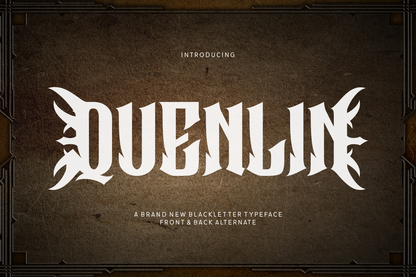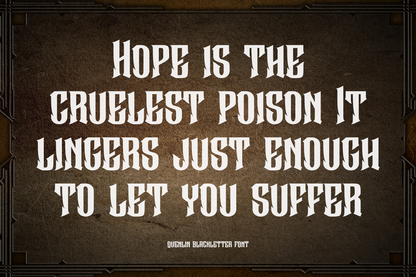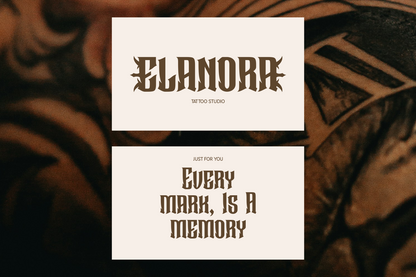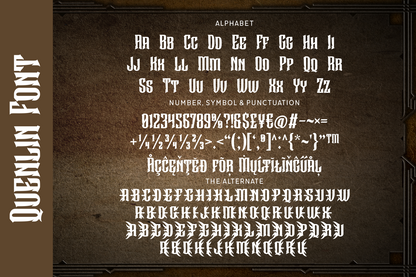
Quenlin is a striking tribal-inspired blackletter font with fierce ornamental extensions. Its spiked terminals and dramatic flair make it a bold choice for fantasy gaming, biker branding, or tattoo artwork with a raw, rebellious edge.